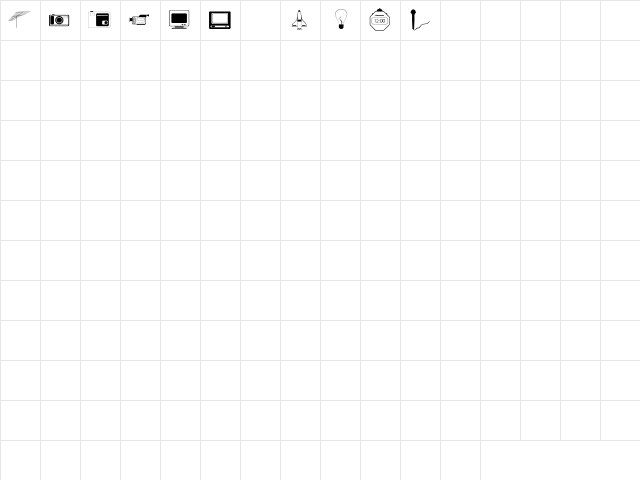
TECHNOL-Normal Regular
TECHNOL-Normal channels digital-age aesthetics through its sharp, structured letterforms — ideal for brands that want to signal innovation.
Pro Tip: Try TECHNOL-Normal with generous letter-spacing in UI labels and navigation — the geometric forms benefit from room to breathe.